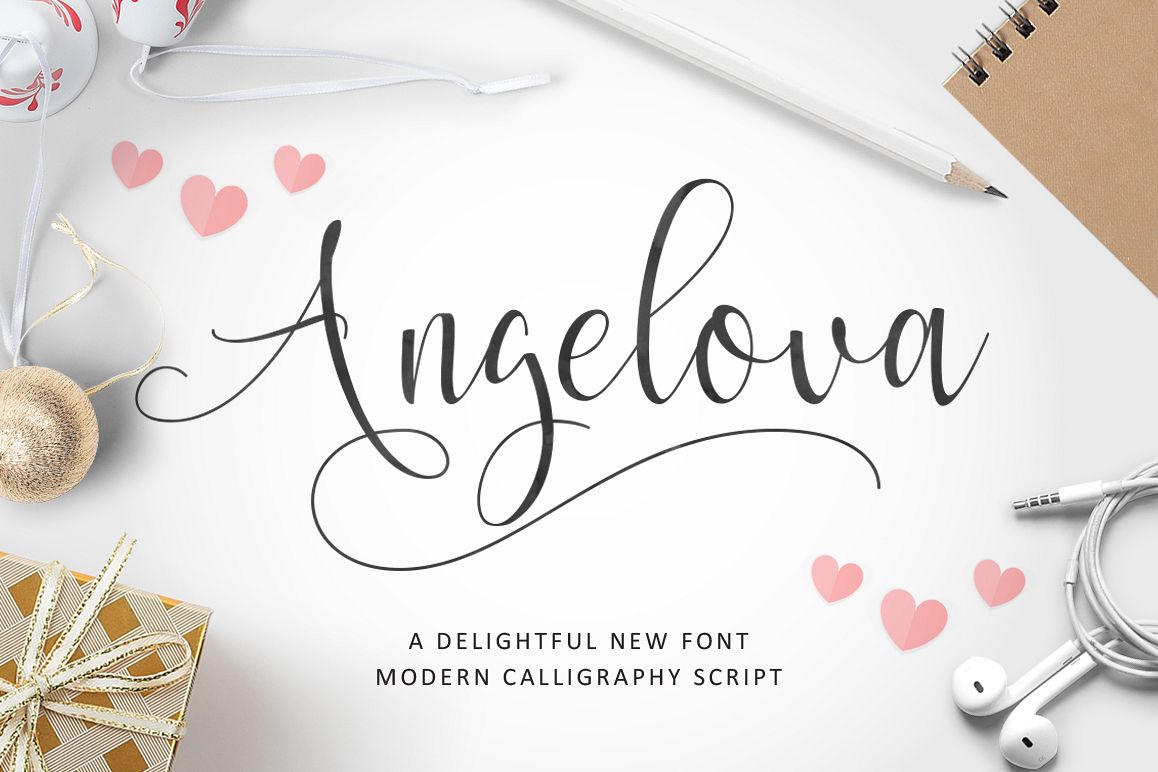
Angelova Script
Introducing Angelova Script
Angelova Script is a new modern calligraphy Typeface Fonts collection from Ianmikraz studio, combines from copperplate to contemporary typeface, classic, beauty and elegant touch.
Angelova Script features 254 glyphs and 71 alternate character contain with opentype features. Stylistic Alternates, Standart Ligature and more.You can access all those alternate characters by using OpenType savvy programs such as Adobe Illustrator, Adobe InDesign and CorelDraw X6-X7.For other programs that doesn't support OpenType Features or Glyphs Panel such as Photoshop, you can use Character Map in Windows to access the alternate characters :)
Angelova Script is suitable for Apparel Brand, any greeting cards, Painting design style, or any design that needs natural and personal touch. Mix and match the alternate characters to add an attractive message to your design.Features of Angelova Script is;
• Swash Alternates
• Standart ligatures
• Stylistic sets